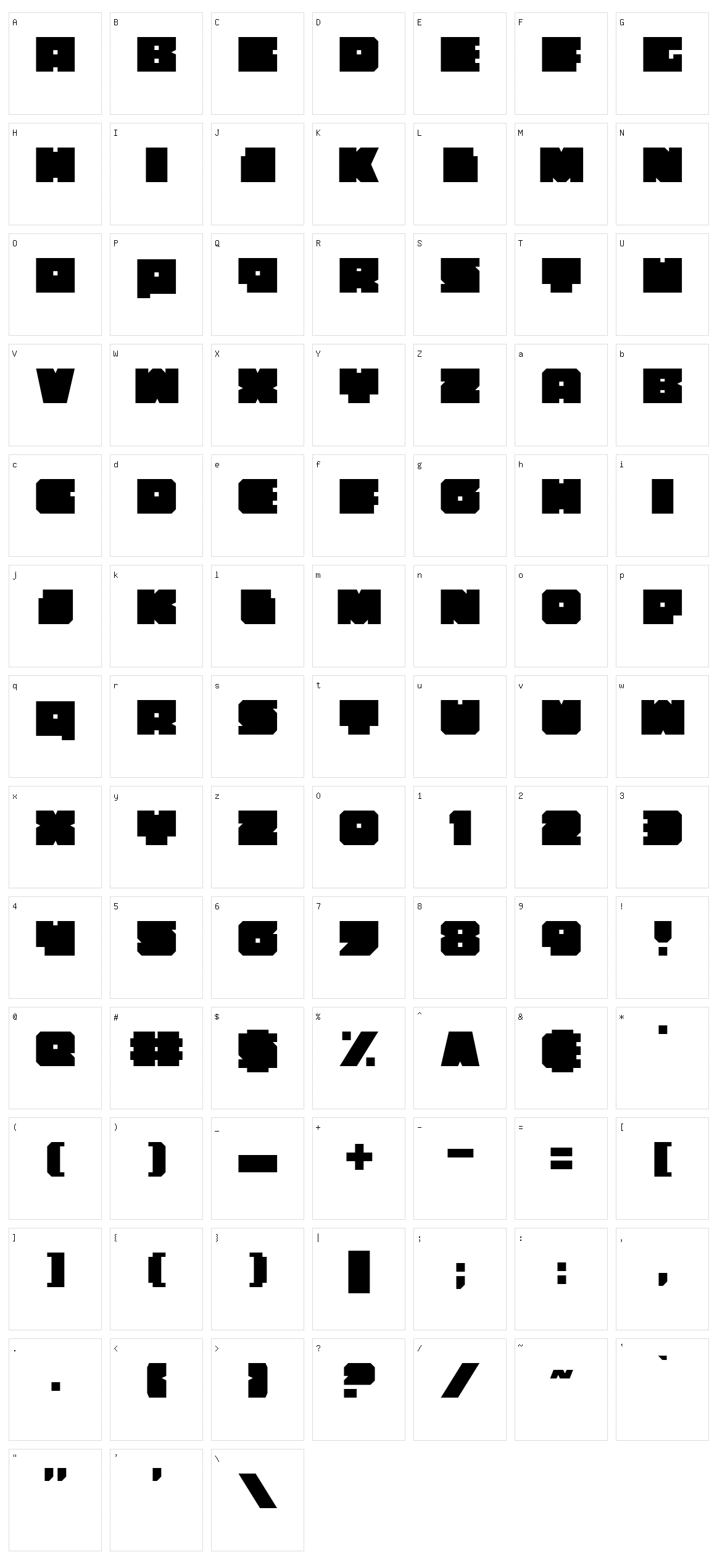
This font comes with the following 16 versions: Regular, Italic, Condensed, Condensed Italic, Expanded, Expanded Italic, Academy, Academy Italic, Outline, Outline Italic, 3D, 3D-Italic, Semi-Italic, Rotalic, Leftalic and Semi-Leftalic.